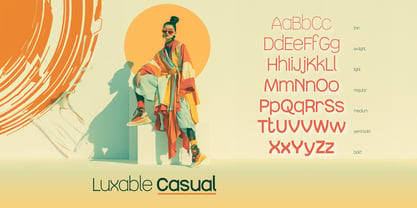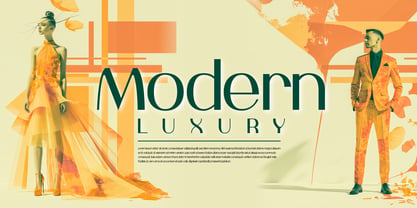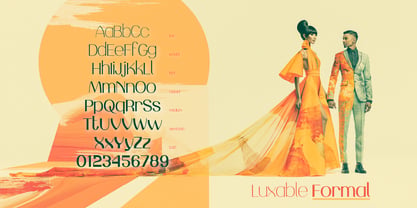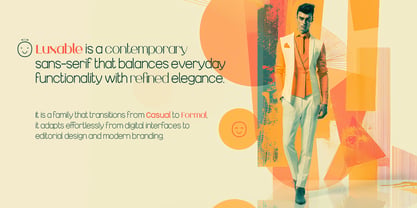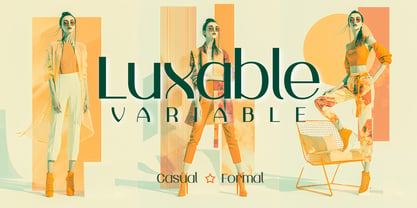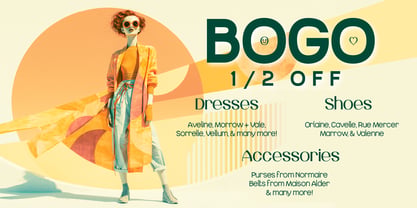
Luxable
Luxable Variable is a contemporary sans-serif designed to bridge the gap between functional design and modern elegance. Built around generous x-heights, compact proportions, and graceful curve work, it offers readability while maintaining a distinctive personality suited for branding, editorial design, digital products, and interface systems.
Its defining feature is a custom STYLE axis, allowing designers to transition seamlessly from Casual to Formal. As the axis shifts, the typeface evolves from a low-contrast, approachable workhorse into a more refined, high-contrast expression with subtle editorial and Art Deco influences. Combined with a variable weight axis, Luxable provides an expansive design space that adapts naturally to changing visual tones without sacrificing consistency.
Luxable is equally comfortable in UI design, identity systems, publications, packaging, and motion graphics. Whether creating a clean product interface, a contemporary brand identity, or an elegant editorial layout, it delivers a modern classic aesthetic that feels confident, approachable, and unmistakably current.
The family includes multilingual support, refined spacing and kerning, and a fully variable workflow designed to give designers precise control over both function and style.